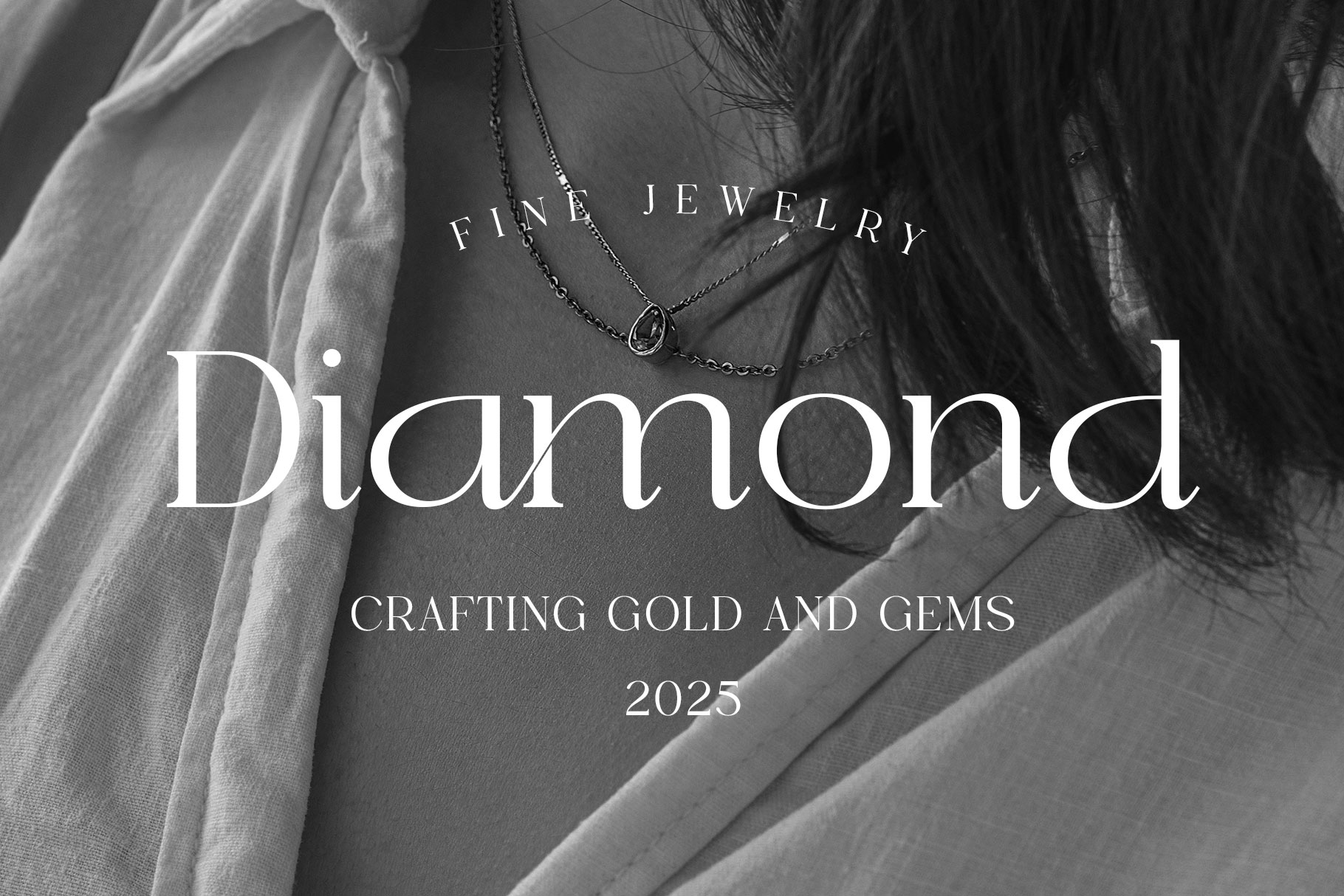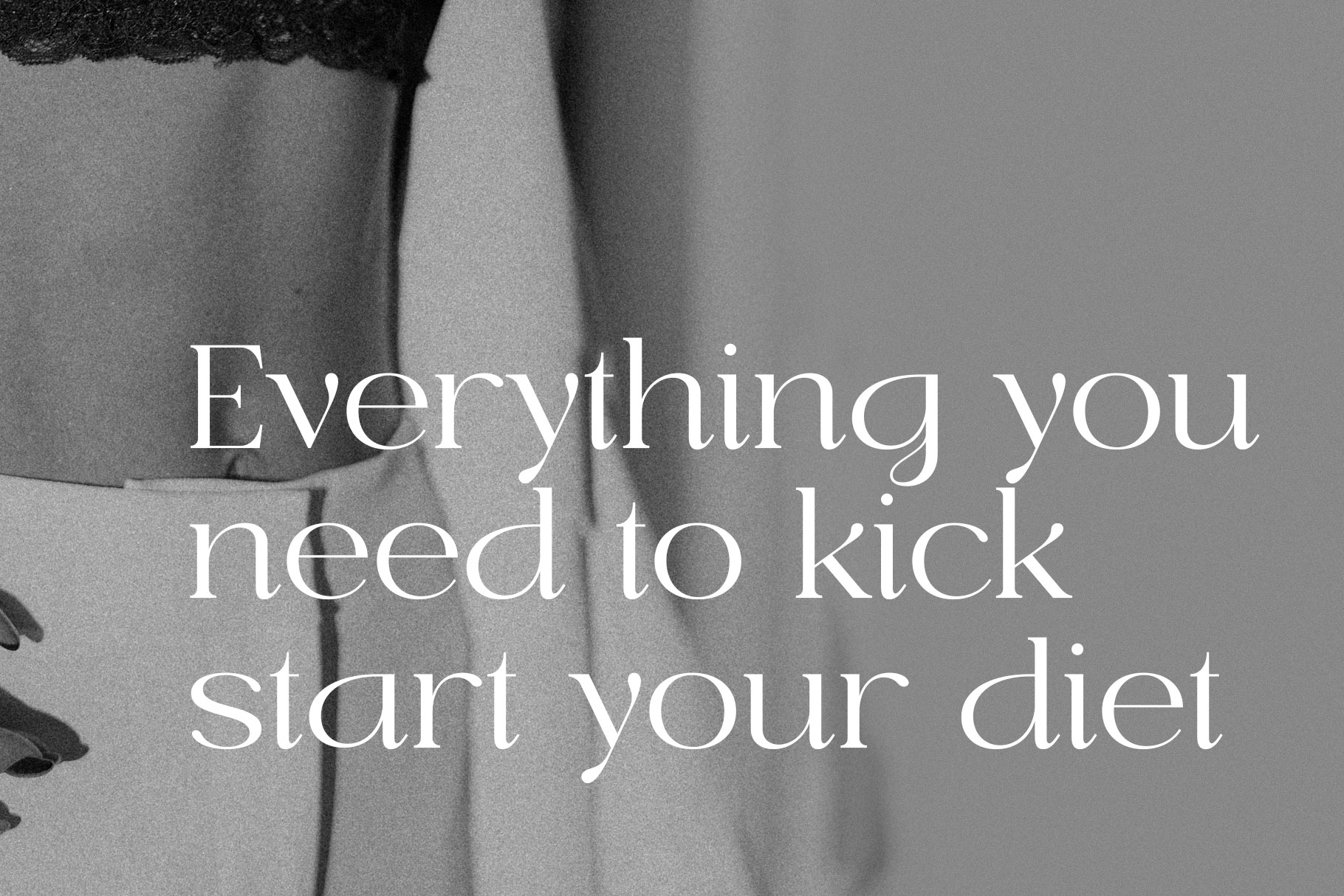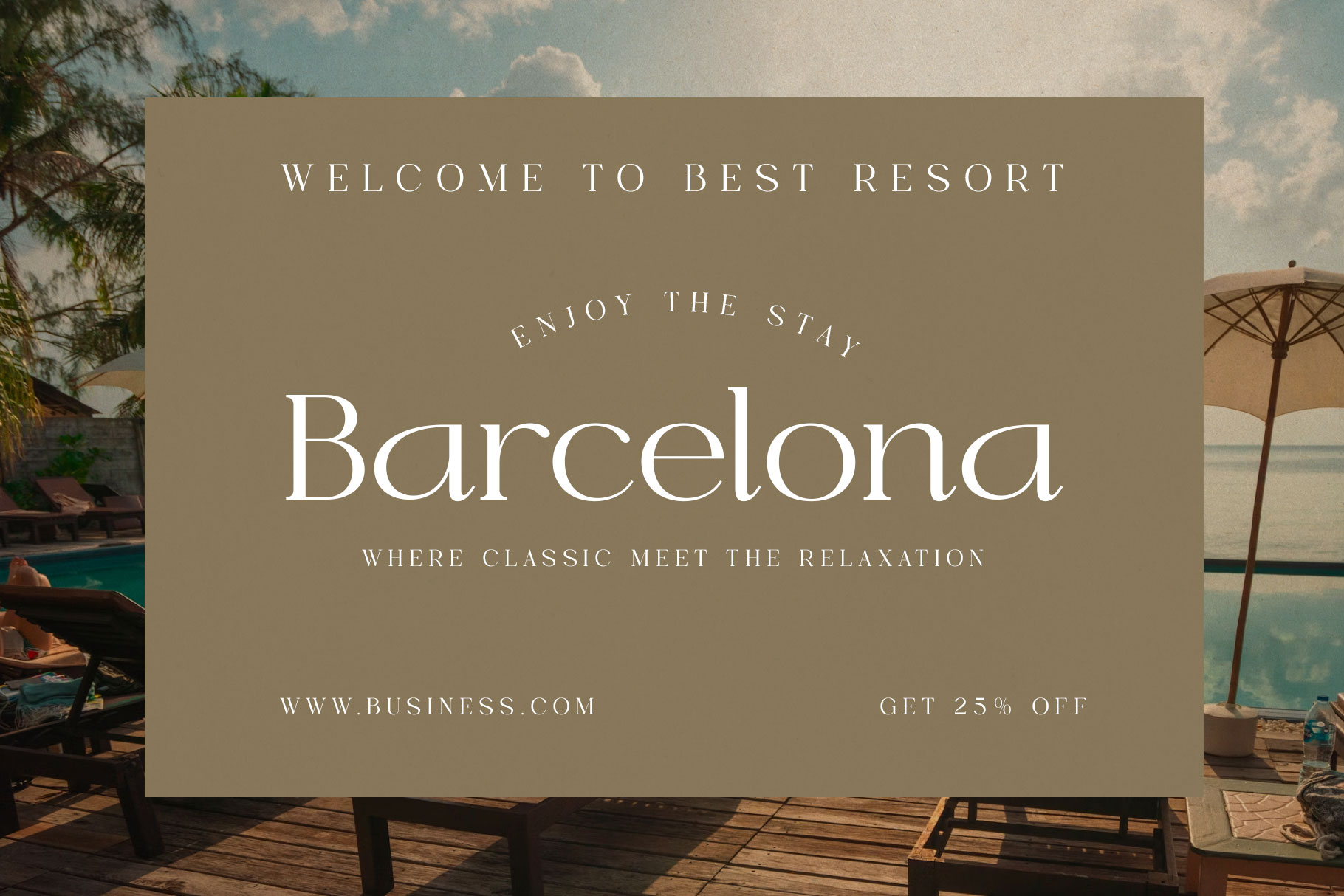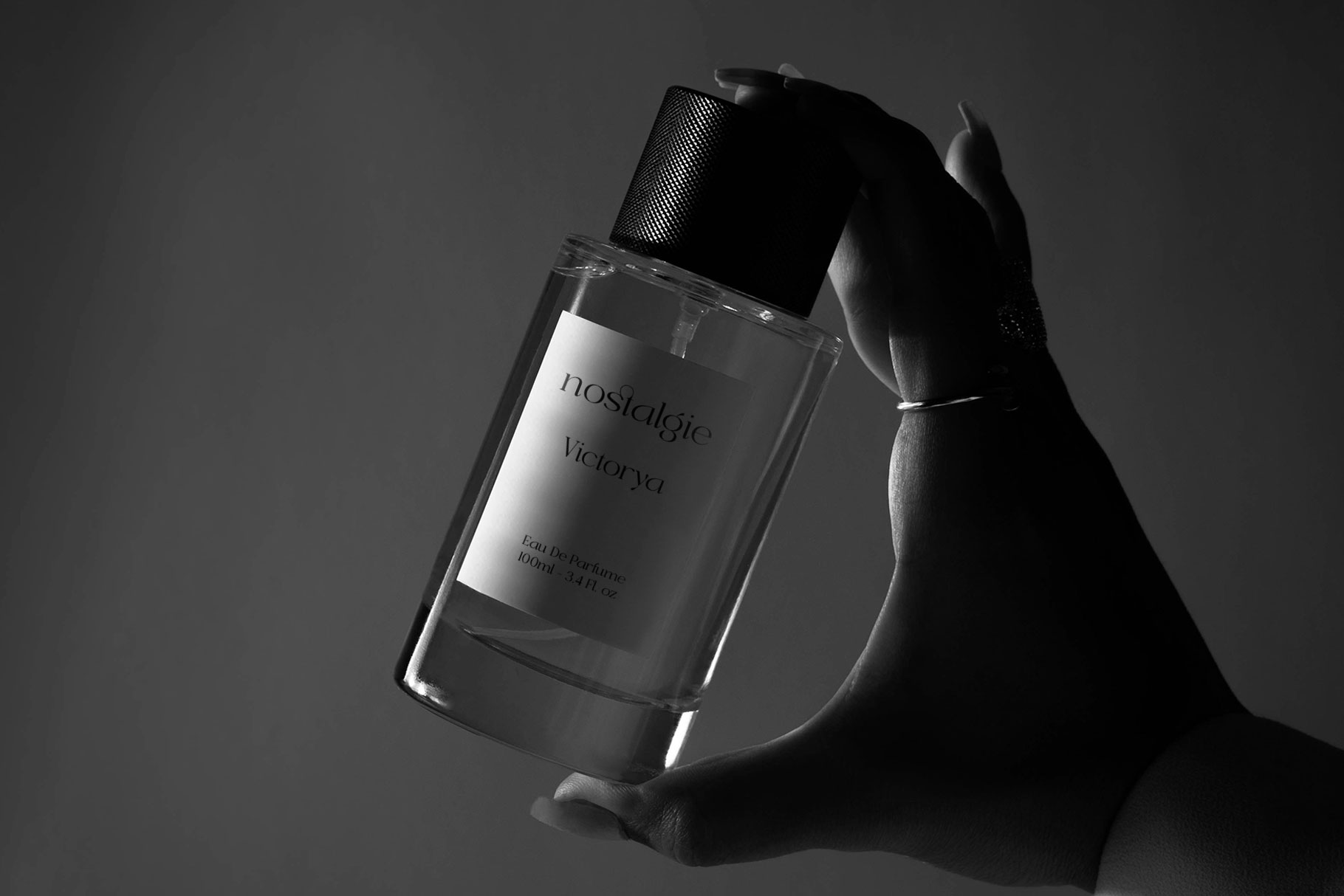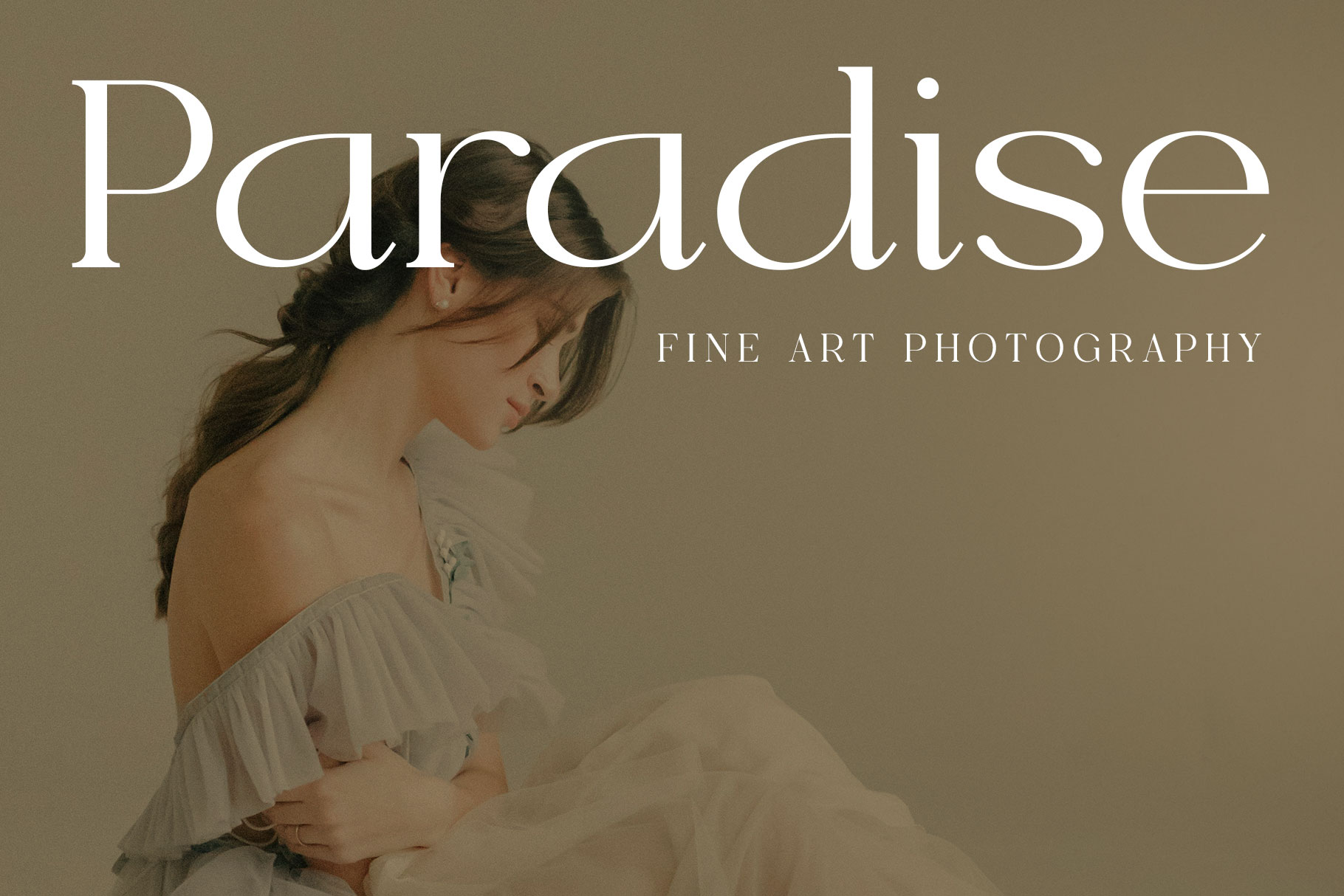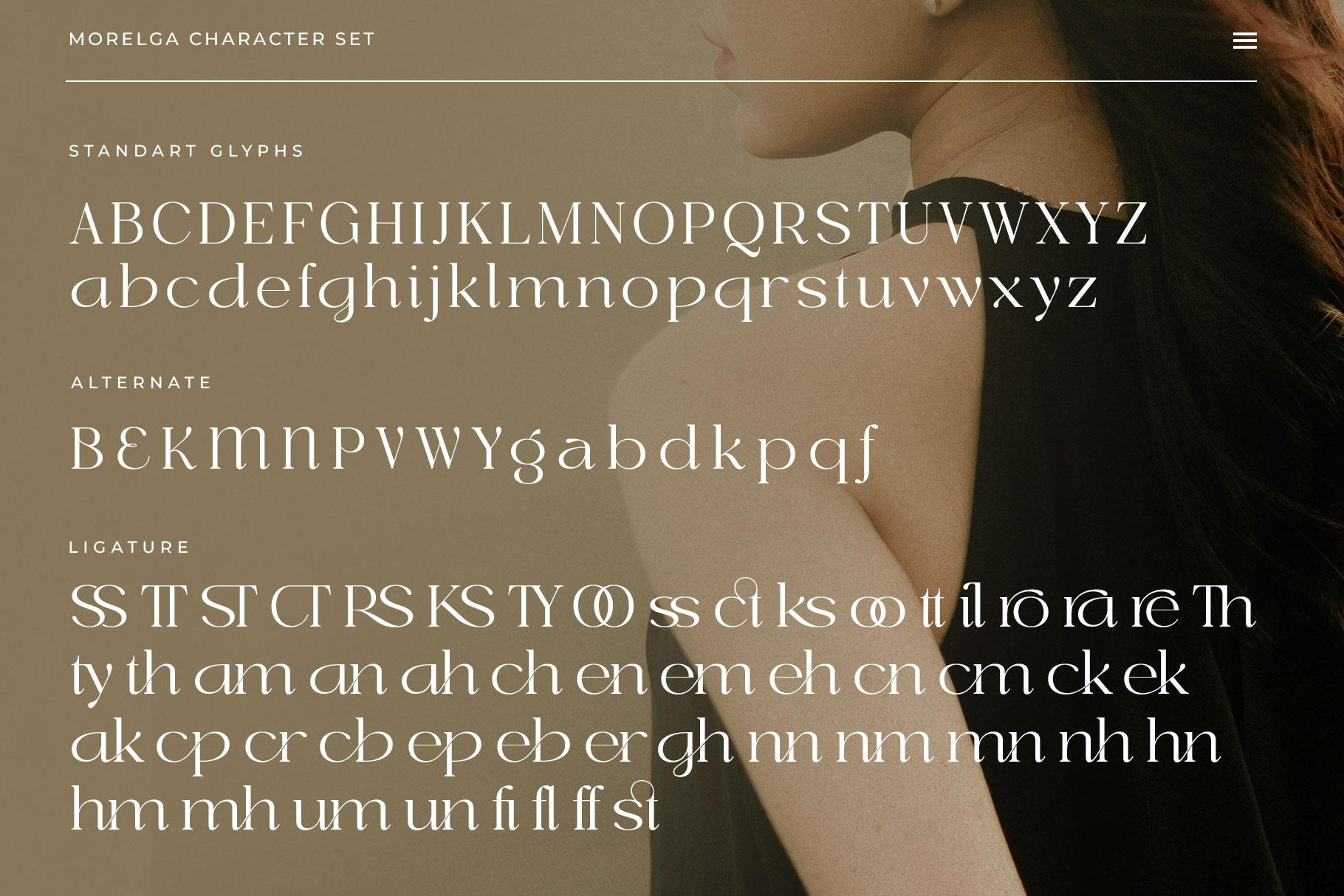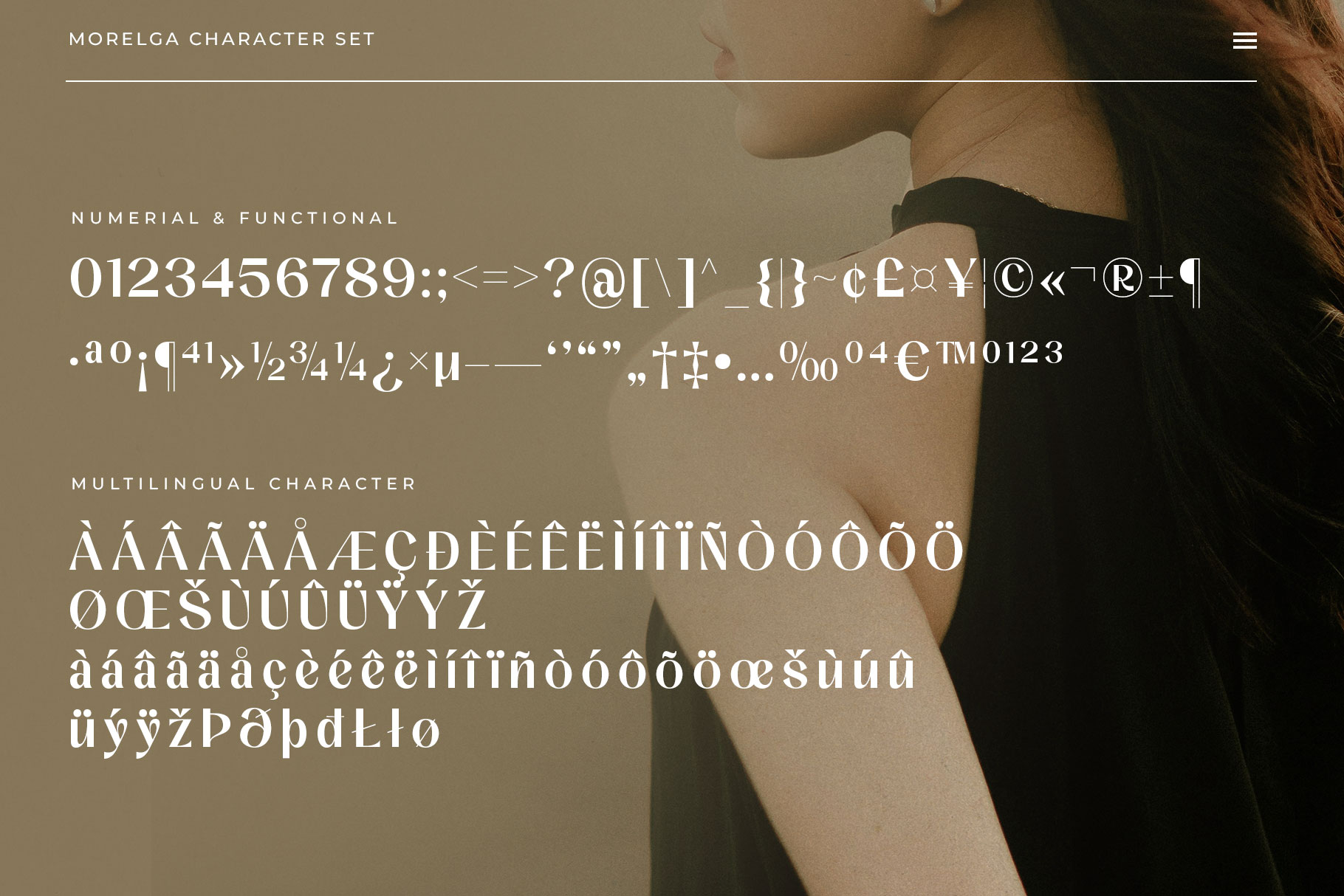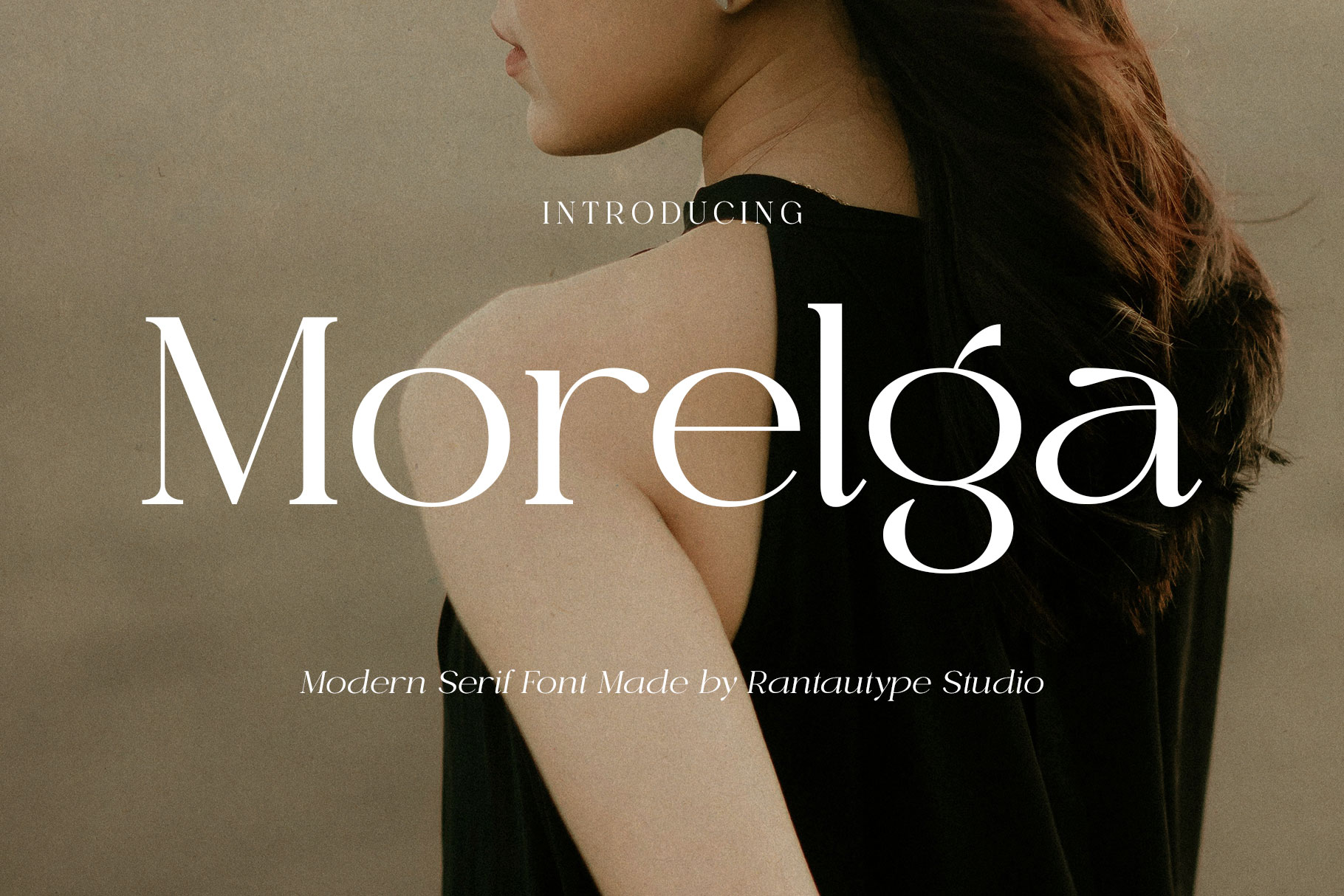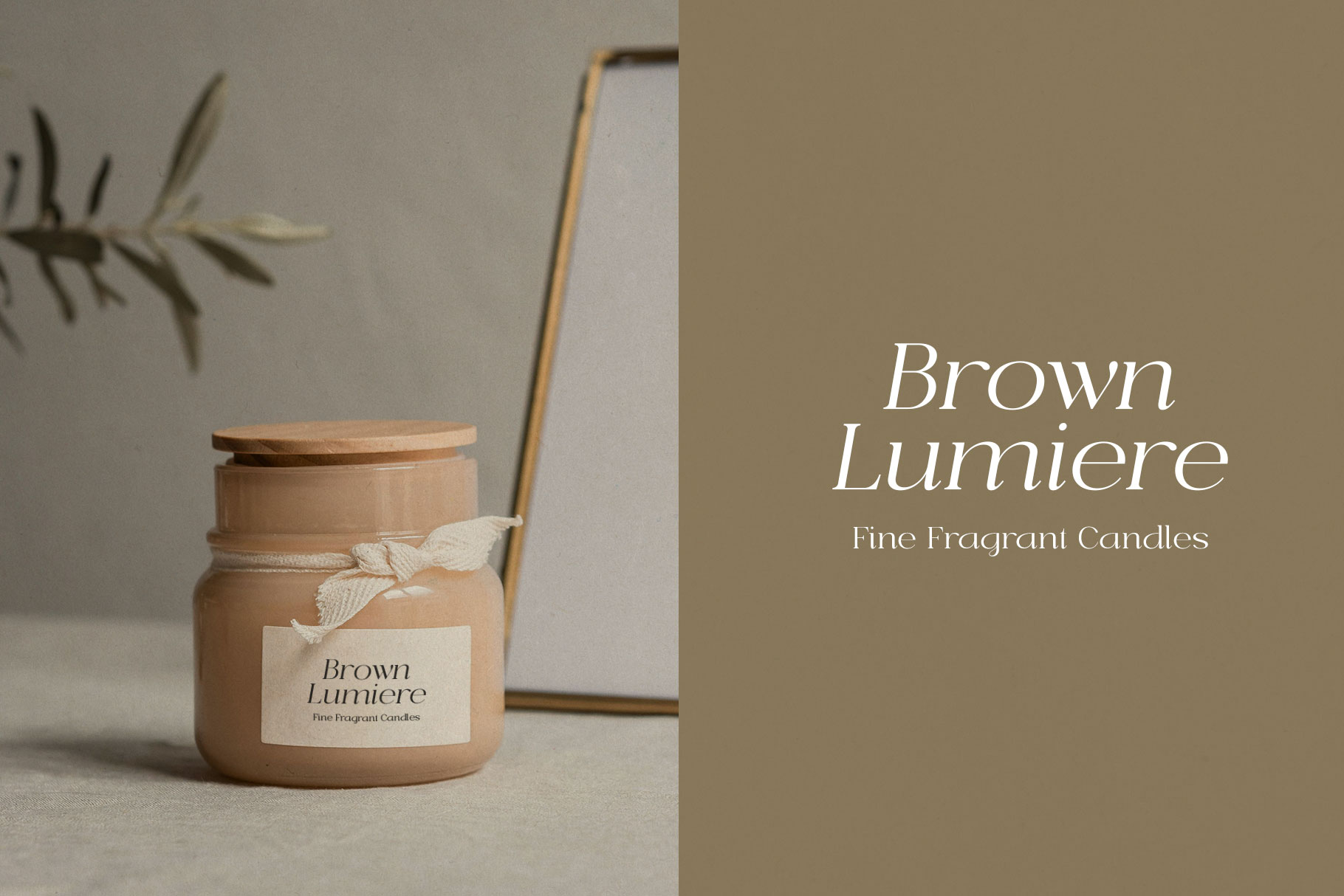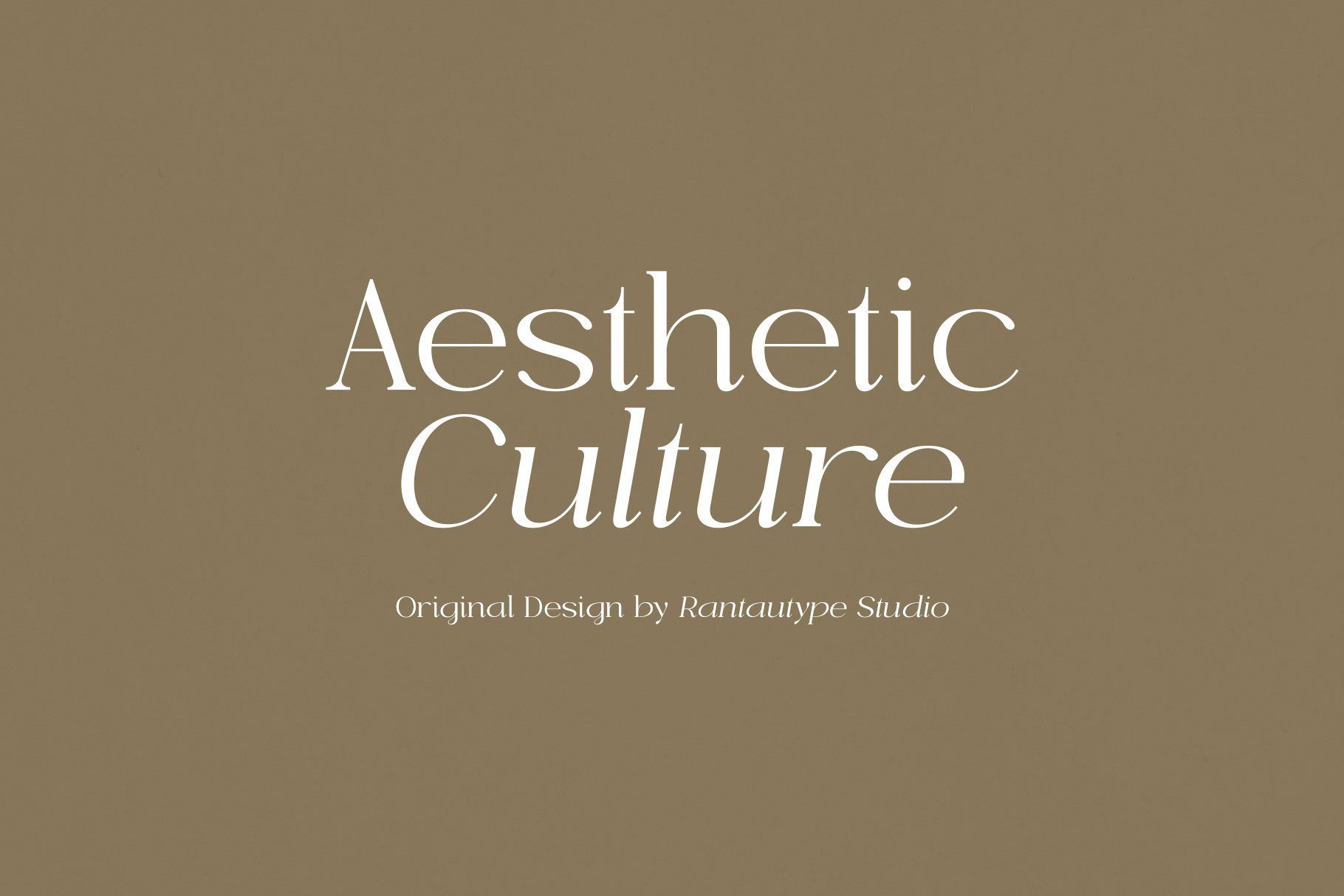
Morelga Modern Serif Font
Morelga is a modern serif font that blends timeless elegance with contemporary sophistication. Morelga is a perfectly choice for any creative endeavor, chic, lifestyle design such as logotype, advertisements, watermark on photography, stationery, branding project, display and magazine, invitation, corporate brand, product design, label, business project and many other project with modern touch.